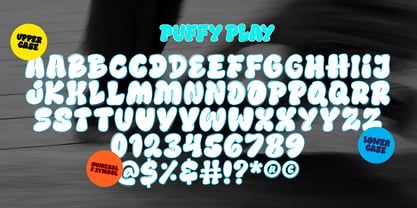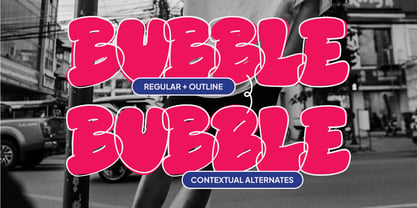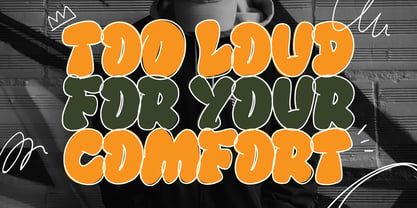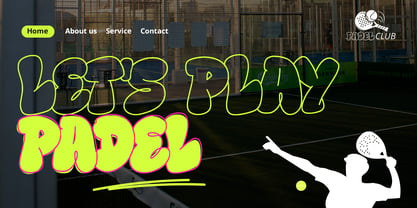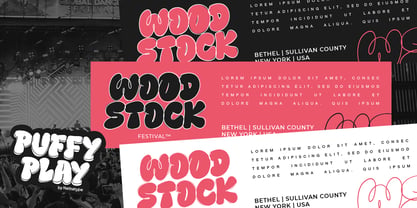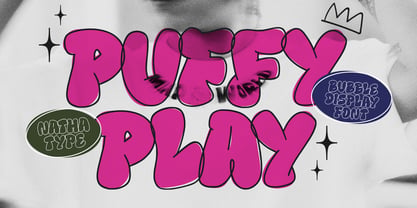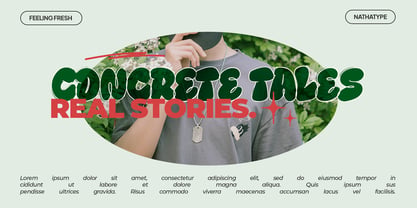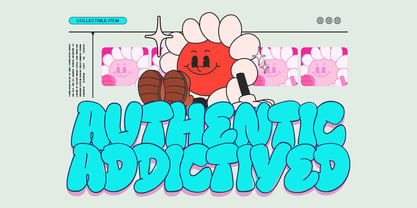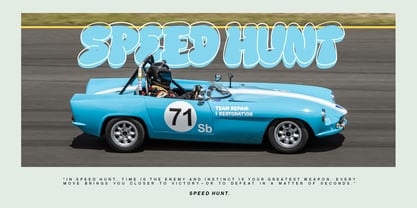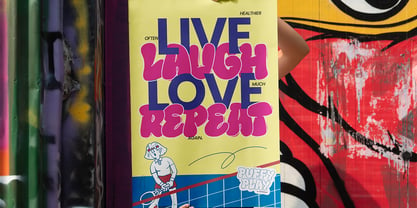
Puffy Play
by Nathatype
The Puffy Play Font Family was designed by Donis Miftahudin and published by Nathatype. Puffy Play contains 2 styles and family package options. More about this family
Puffy Play is a fun and playful bubble display font. Created with a bold weight, rounded bubble letterforms, and low contrast, this font delivers a soft, chunky appearance that feels cheerful and approachable. The additional outlines add extra depth and dimension, making every letter pop with a lively, eye-catching style. In addition, enjoy the features here. Features: Contextual Alternates Multilingual Supports PUA Encoded Numerals and Punctuations Puffy Play fits in logos, quotes, branding, posters, and many more designs. Find out more ways to use this font by taking a look at the font preview. Thanks for purchasing our fonts. Hopefully, you have a great time using our font. Feel free to contact us anytime for further information or when you have trouble with the font. Thanks a lot and happy designing.